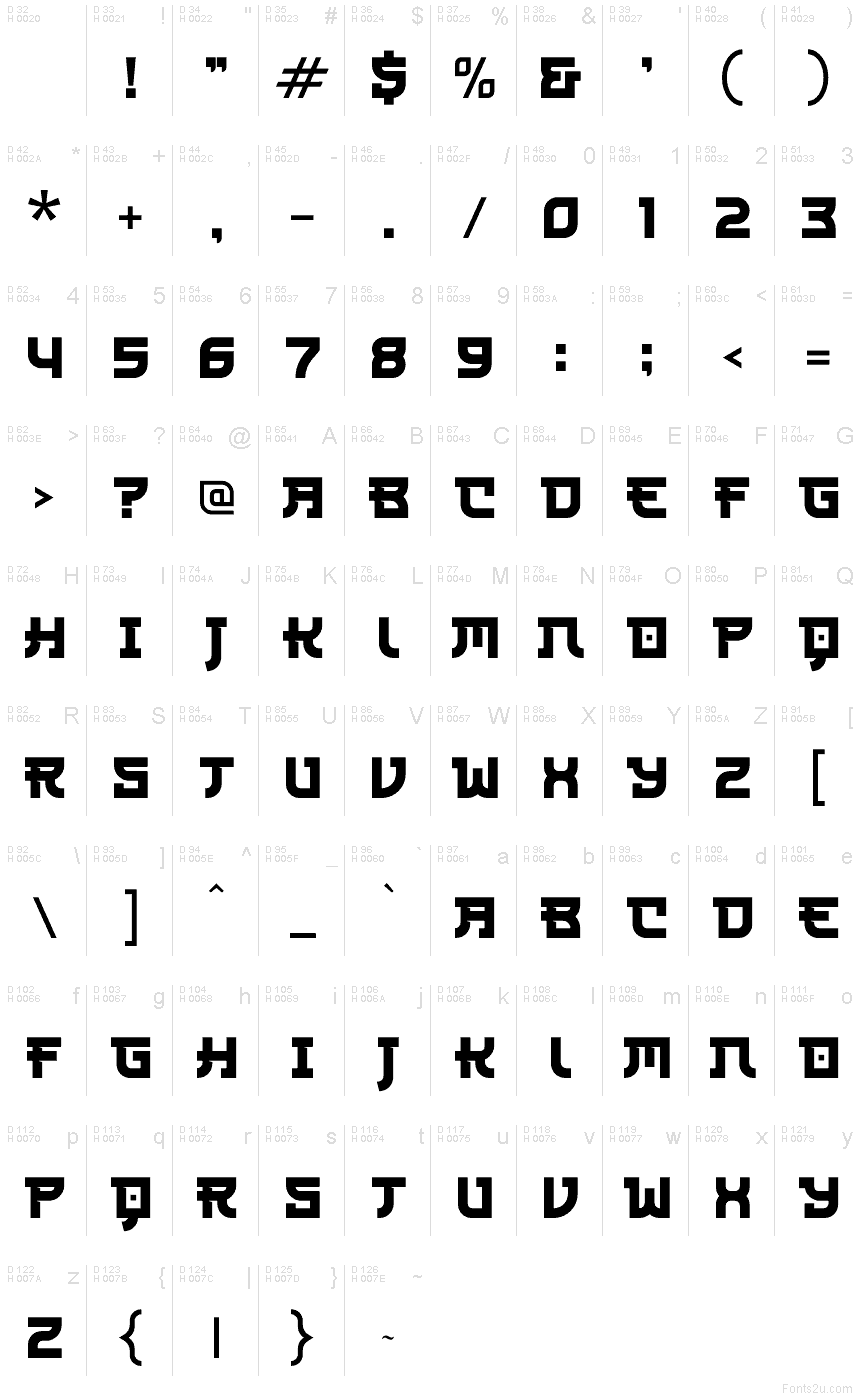
Rijaya Konoha
Rijaya Konoha font by Storytype Studio is a bold, expanded Japanese typeface that reflects a modern futuristic style. The angular and mechanical elements make it visually striking, while the stencil-like effects give it an interesting geometric appearance. Its unconventional approach is matched with high legibility and overall readability to serve different design ideas and purposes.
Use Rijaya Konoha for fun branding projects, typography posters, advertisements, signs, titles, headlines, magazines, or social media designs. Even packaging designs can be enriched when you simply use this great free font in some print items like gift bags or items’ labels. It’s also suitable for futuristic UI/UX designs like websites and apps user interfaces.